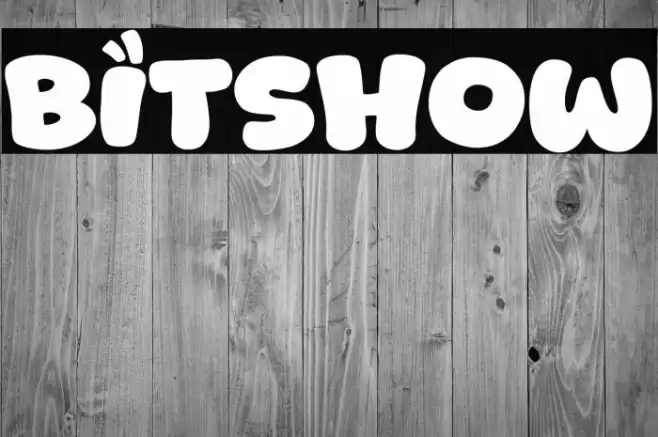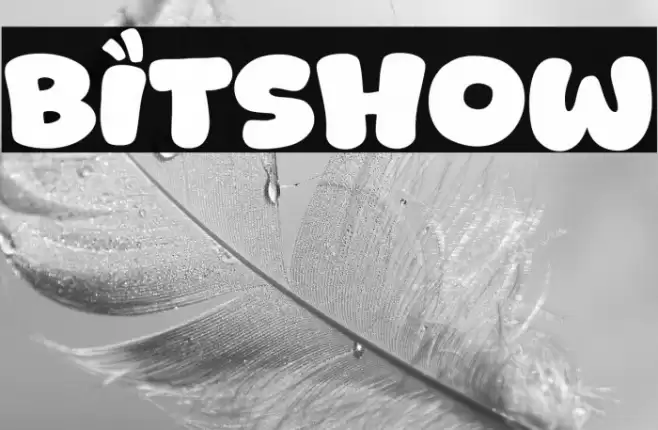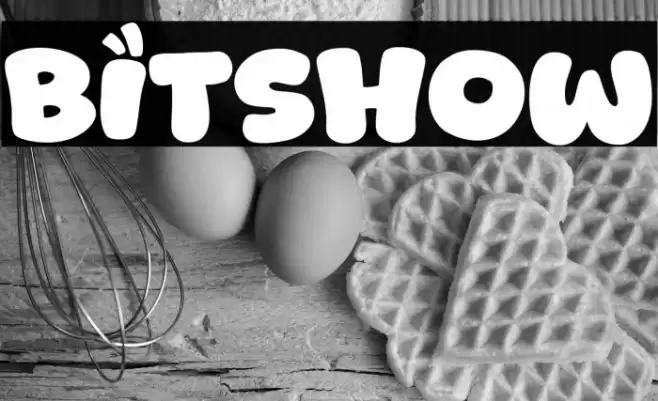
Bitshow Font
Bitshow Description
This font features a bold, playful style with rounded, bubble-like characters that convey a sense of fun and approachability. The letters are uniformly thick, with a consistent stroke width that gives them a cartoonish and friendly appearance. The overall design is highly legible, with each character distinctly separated, making it suitable for eye-catching displays. Its exaggerated curves and soft edges contribute to a whimsical and informal aesthetic, ideal for creative and youthful projects. The font includes a full set of uppercase and lowercase letters, numbers, and a variety of special characters, ensuring versatility in usage.
A bold, playful font with rounded, bubble-like characters ideal for fun and creative designs from Uncategorized fonts.
- Font: Bitshow
- Proposed Projects: Children's books, playful branding, party invitations, comic strips, and casual posters.
- Overall Style: Playful